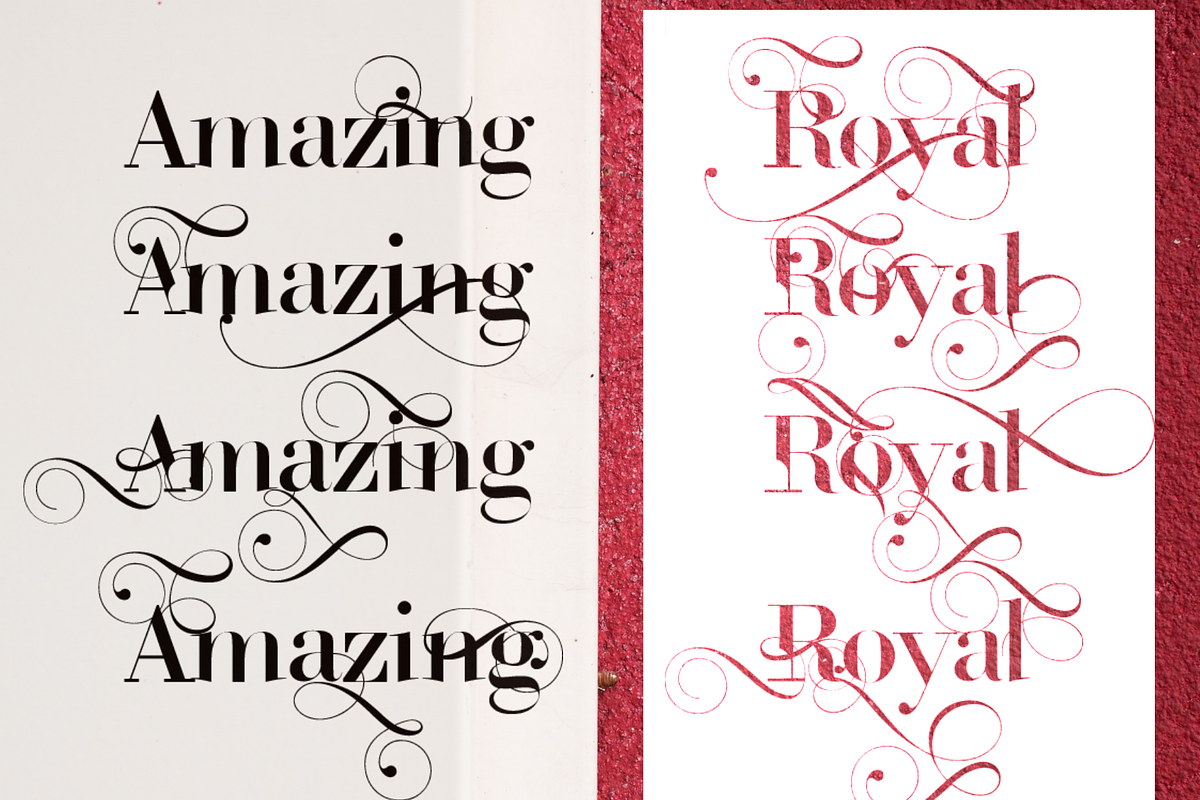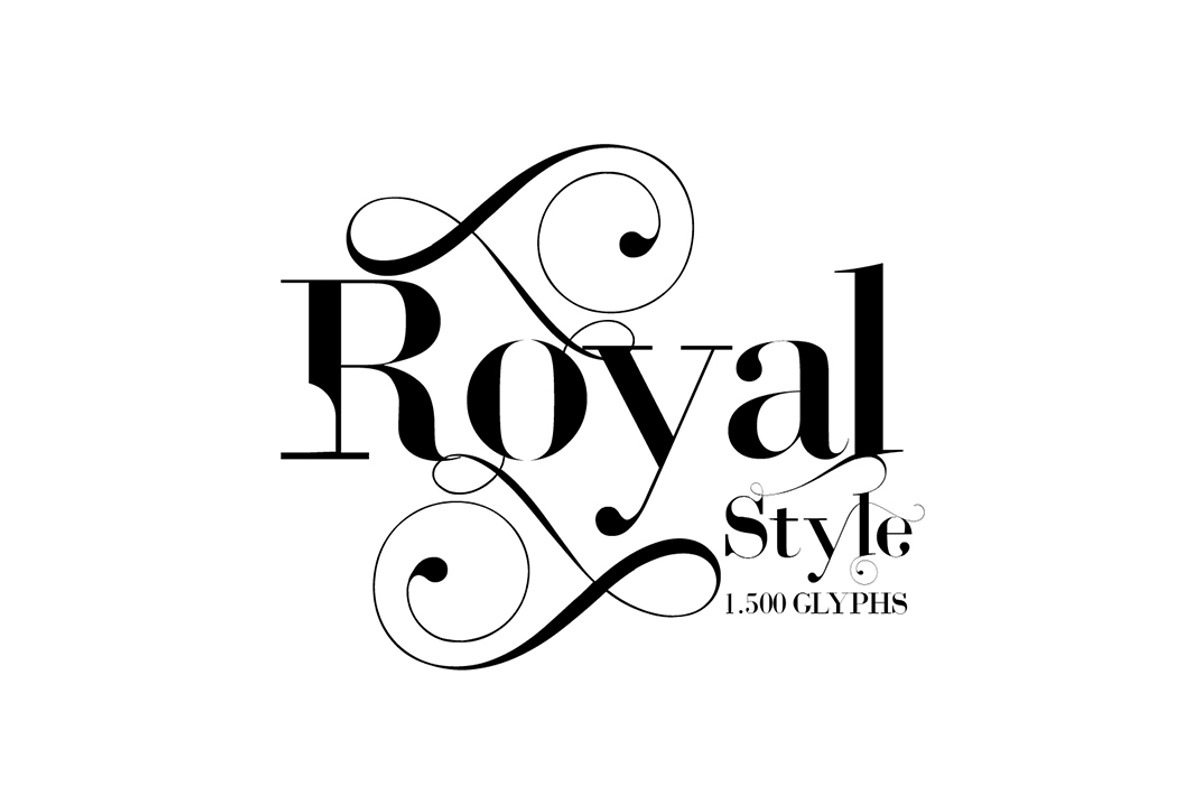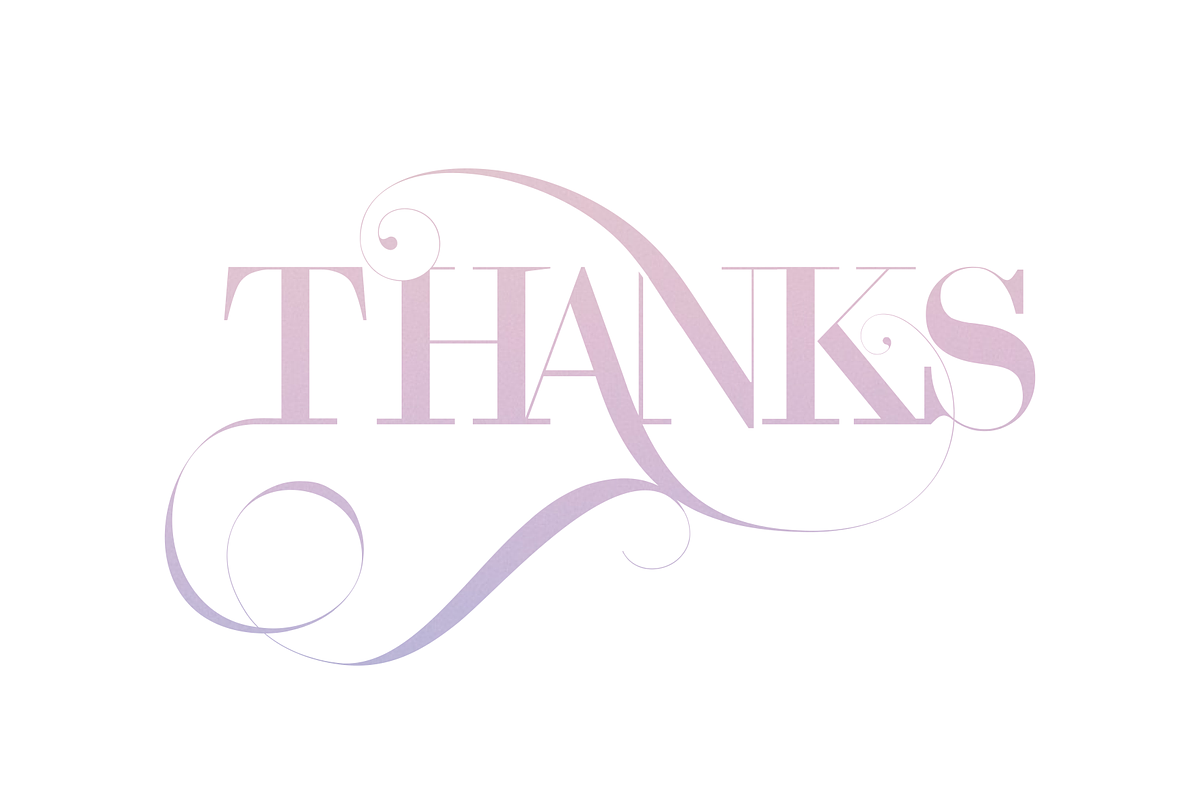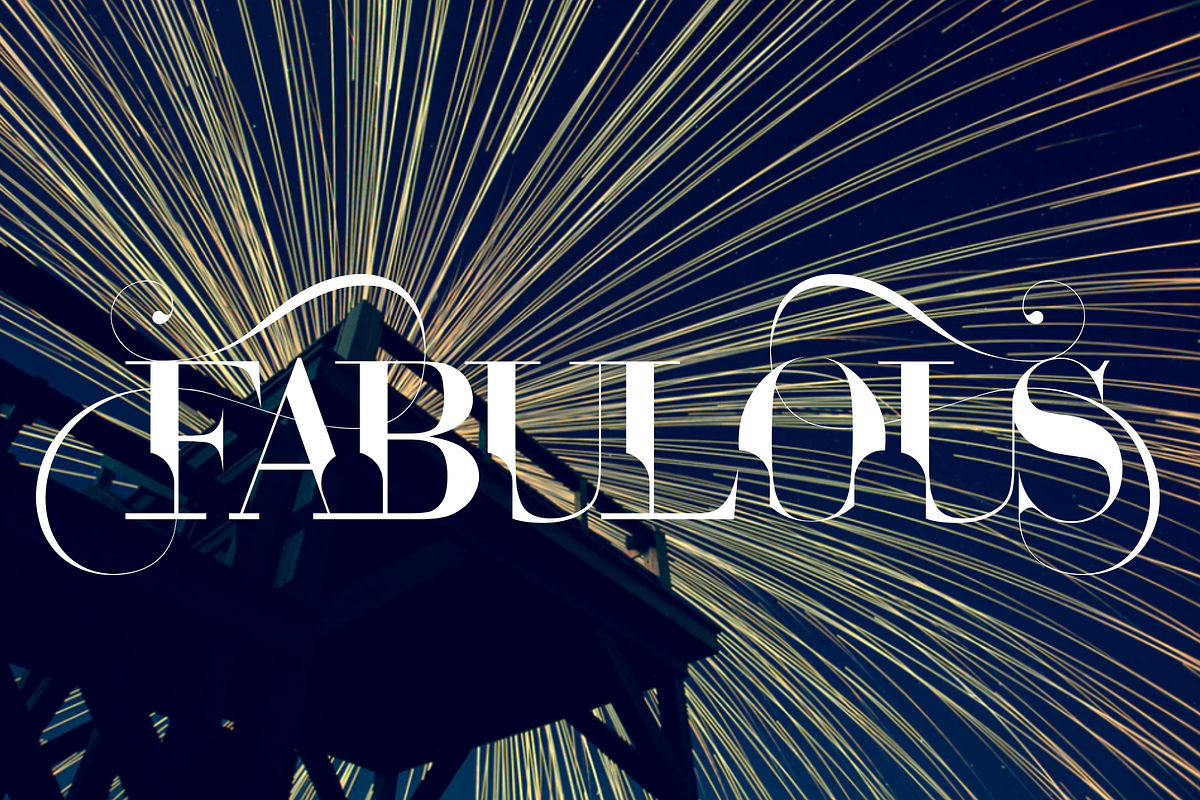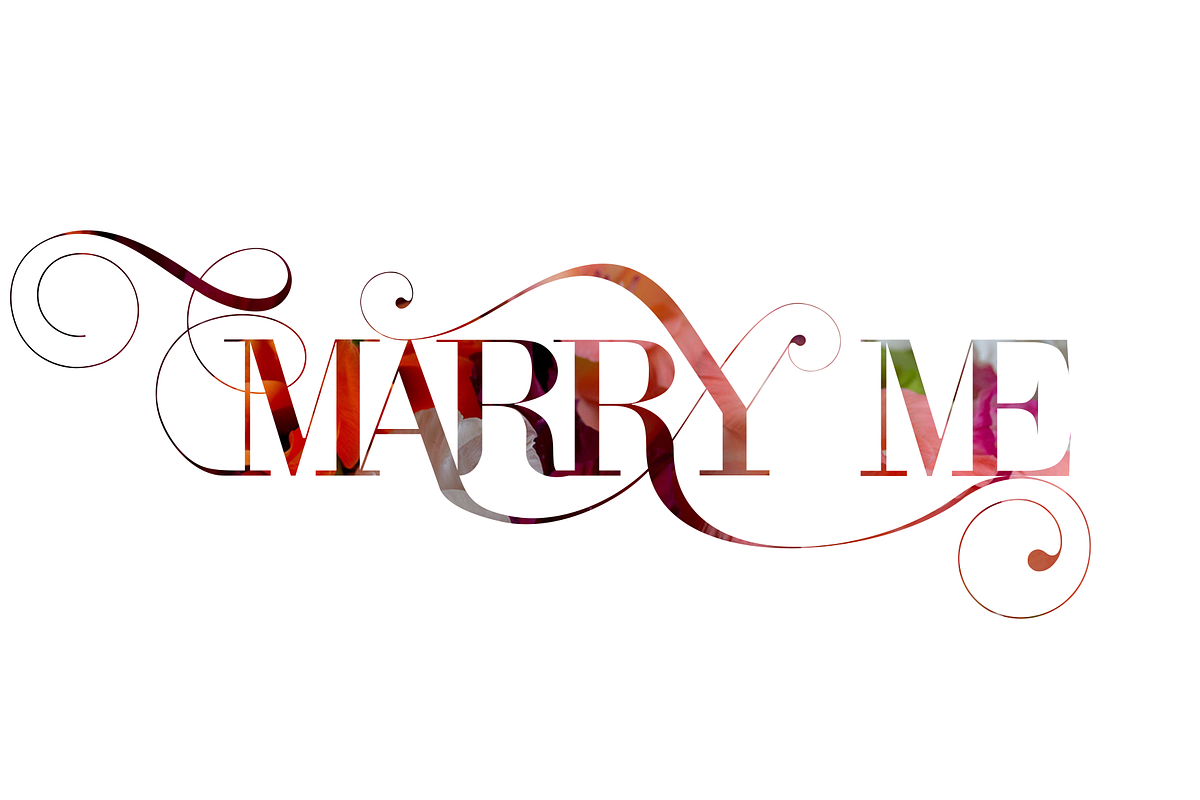
ROYAL TYPEFACE
Royal Typeface is stylish copperplate fonts, combines from copperplate to contemporary typeface with a dancing baseline, classic and elegant touch. Can be used for various purposes. Such as headings, signature, logos, wedding invitation, t-shirt, letterhead, signage, lable, news, posters, badges etc.
Royal Typeface features 1.500 glyphs.
Support with Opentype:
Unique glyphs
With cool Stylistic Alternates
Swash
Stylistic Sets 1,2,3,4,5,6,7,8,9,10,11,12,13,14,15,16,17,18,19 & 20.
Multilingual characters
UPPERCASE
LowerCase
Numeric, Oldstyle Figures & Tabular Figures
Punctuation characters